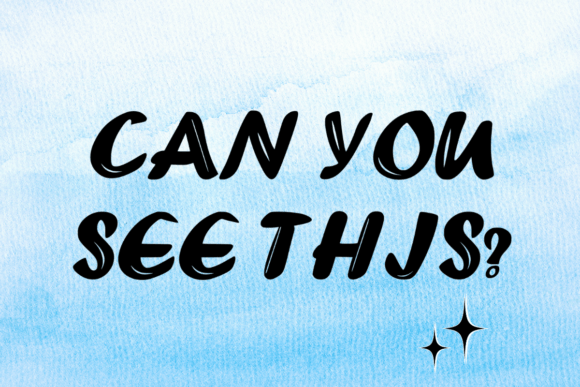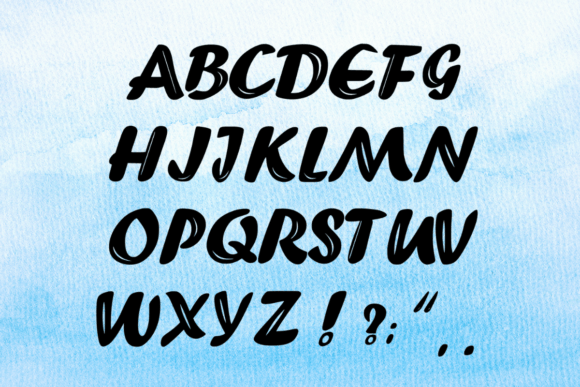
Irtiqa Font – Free Download
Introduction to Irtiqa Font
Cool handwritten font for your design projects.
This font has a bold, playful, and dynamic style, characterized by thick, sweeping strokes and slightly exaggerated curves The lettering conveys a sense of energy and movement, with each character featuring unique, rounded elements that add a touch of whimsy.
Key Features of Irtiqa Font
Why Choose Irtiqa Font?